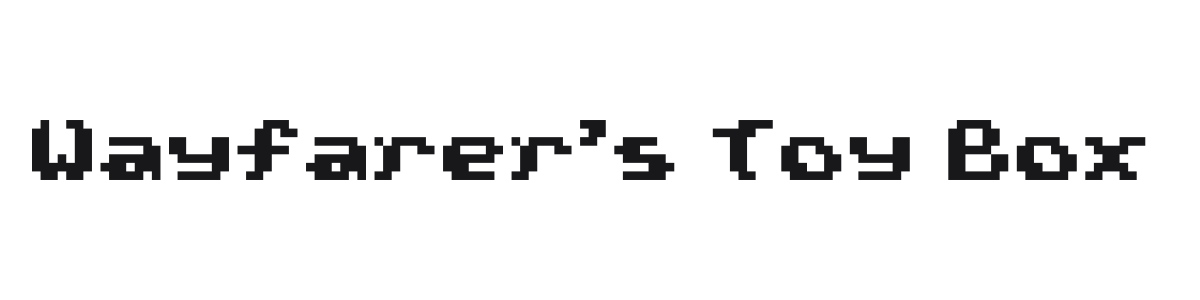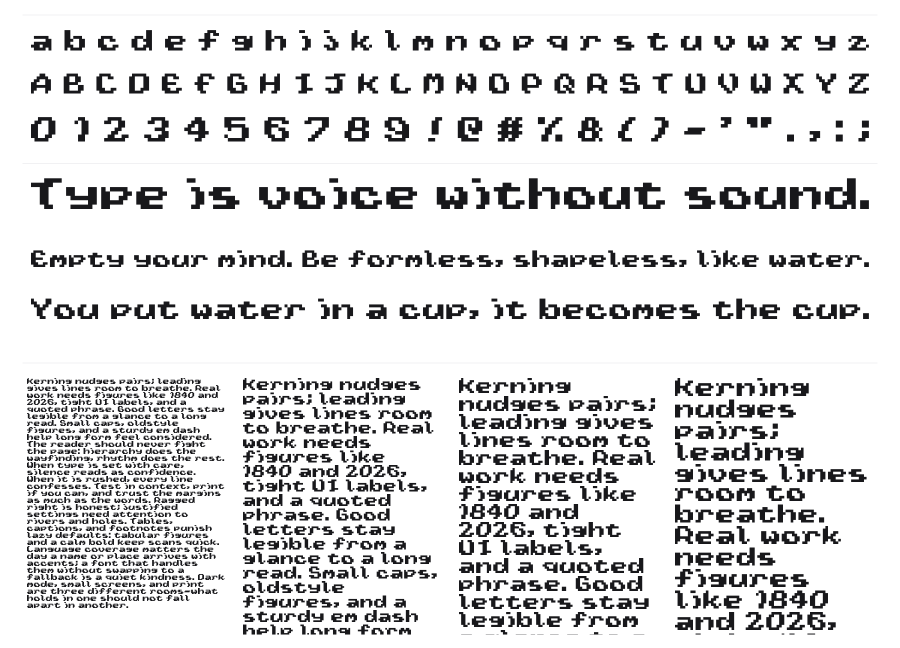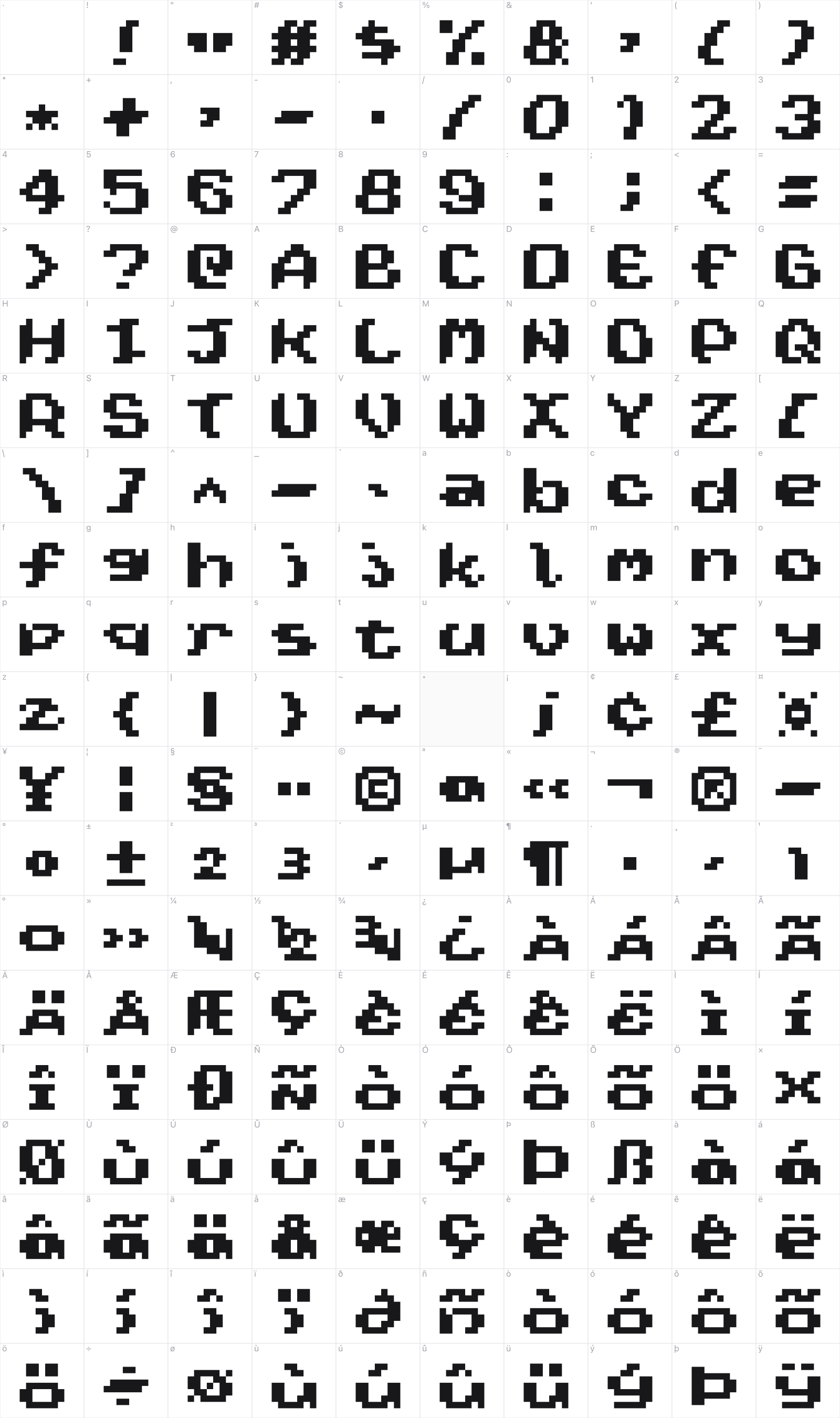
Wayfarer's Toy Box
Wayfarer's Toy Box is a bold bitmap font built on a coarse pixel grid, evoking the chunky text of classic 8-bit video games. Every character is assembled from square pixel blocks with no stroke contrast, giving it that unmistakable retro computing texture. It suits game interfaces, kids' media, and any project where nostalgia for early digital graphics is the point.